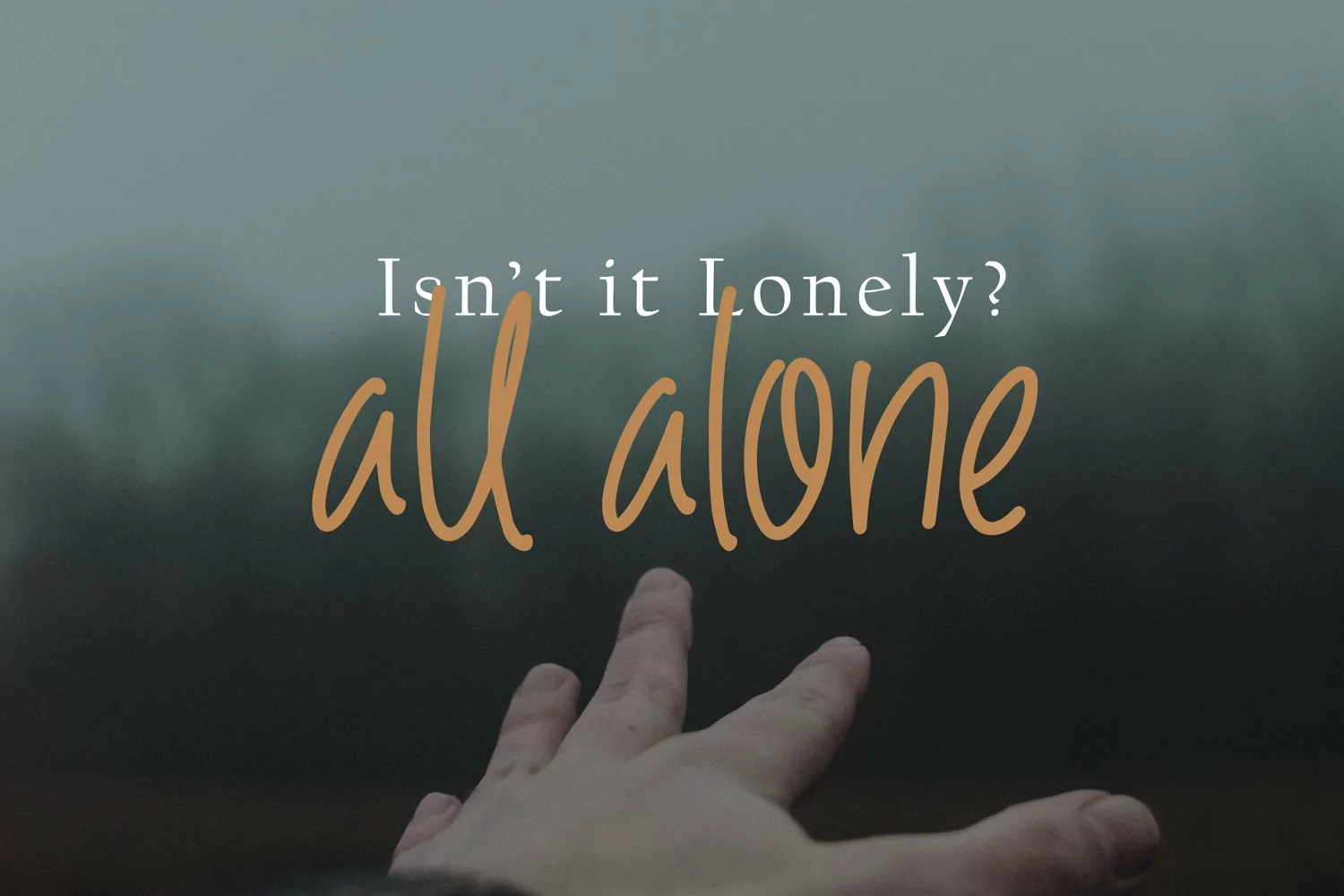
Melancholy Moment - Handwritten Font
Melancholy Moment - Handwritten Font that contain lowercase, uppercase, symbol, and also support multi language. There’s a lot ligatures in this font. This Font also comes with ligatures, alternates and many more. this font suitable for fashion, branding, catalog and other design what you want.